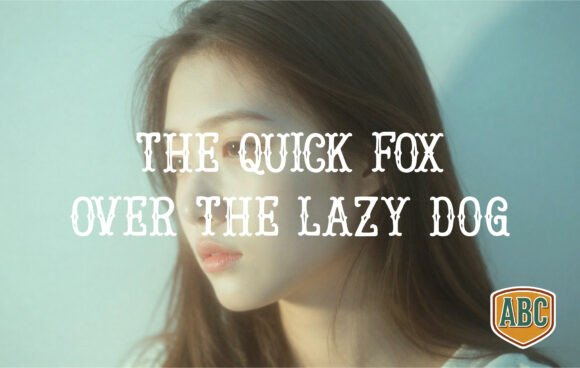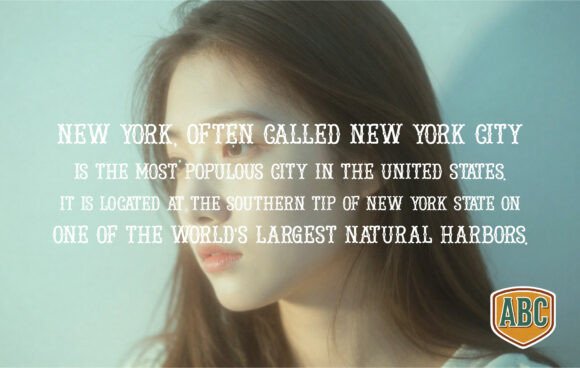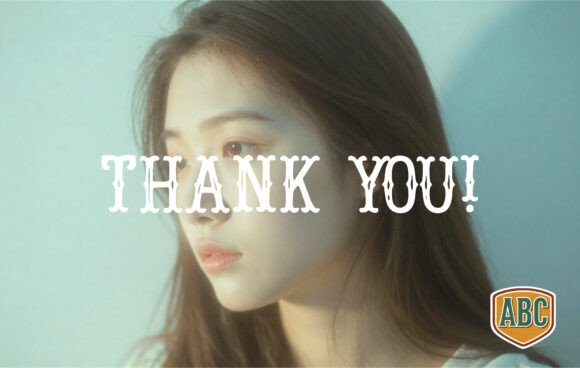
Introduction to Light Cyan Font
Have you ever found yourself scrolling through design inspiration boards, mesmerized by a single font that elevates an entire creative project? For many designers, that “aha” moment comes when they stumble upon the perfect typography to convey their message. For me, that moment came when I discovered the enchanting Light Cyan Font.
This exquisite display font has been a long-standing favorite among designers seeking to add a touch of sophistication to their work. Its delicate, airy aesthetic is a masterful blend of classic Victorian elegance and modern refinement. With its slender proportions and intricate flourishes, the Light Cyan Font is a high-quality design resource that can elevate even the most straightforward project into a work of art.
Key Features of Light Cyan Font
- High-quality font design for creative projects, ensuring a professional look and feel.
- Unique characteristics include a transparent background, allowing for easy layering and manipulation in design software.
- Available in a single weight, ideal for use in headings, titles, and other design elements where a clean, modern look is desired.
- Designed to be highly legible, even at small font sizes, making it perfect for use in digital design projects.
Honest Review: Light Cyan Font
As a designer, I’m always on the lookout for new design resources to elevate my creative projects. Recently, I stumbled upon the Light Cyan Font, and I’m excited to share my honest review with you.
- High-quality design: The Light Cyan Font has a crisp, clean aesthetic that’s perfect for modern designs.
- Transparent background: The font’s transparent background allows for seamless integration with any background image or color.
- Limited character set: Unfortunately, the Light Cyan Font only includes a limited character set, which may not be suitable for complex designs or languages.
- No bold or italic styles: While the font is clean and simple, it lacks bold and italic styles, which can be a limitation for designers who need more versatility.
Overall, I think the Light Cyan Font is a solid addition to any designer’s toolkit. Its high-quality design and free download make it an excellent resource for creative projects. While it has some limitations, I believe it’s still worth considering for your next design project.
Common Use Cases for Light Cyan Font
The Light Cyan Font is ideal for creative projects, such as graphic design, digital art, and typography. It’s also a great resource for web designers and developers who need a high-quality, free font for their designs.
Tips for Getting the Most Out of Light Cyan Font
To get the most out of the Light Cyan Font, experiment with different font sizes, styles, and colors. You can also pair the font with other design elements, such as images or shapes, to create a unique and eye-catching design. Remember to save your design resources for future use and share them with others to collaborate on creative projects.